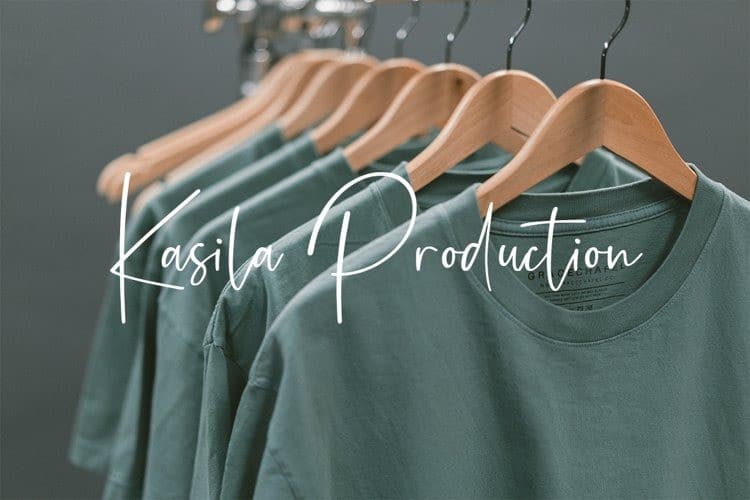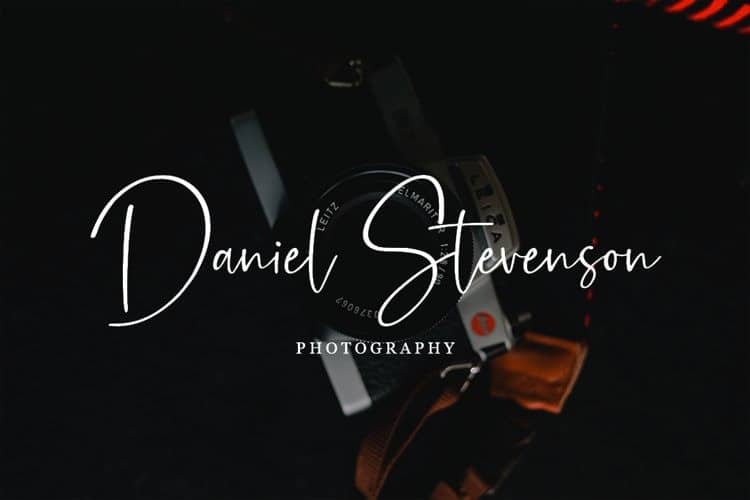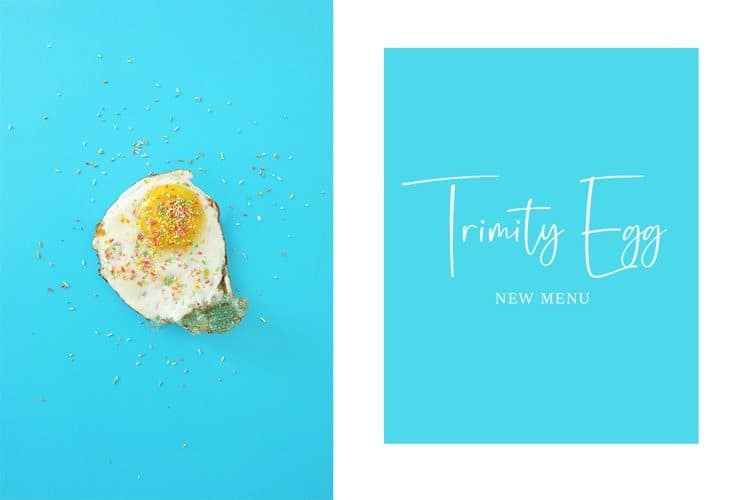
Pleasent Script Font
Introducing the new elegant Pleasent Script Font! For those of you who need a touch of elegance combining classic style with modern calligraphy style for your design, this font is made for you!. It’s designed and shared by Dav studio. This typeface is a handwritten font script with a natural scratch and wrapped with a modern touch of calligraphy. perfect for business cards, wedding invitations, logos, mockups, and all your creative needs.